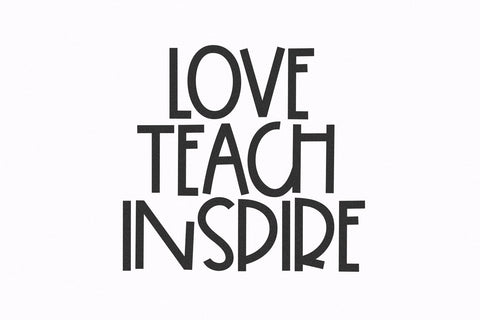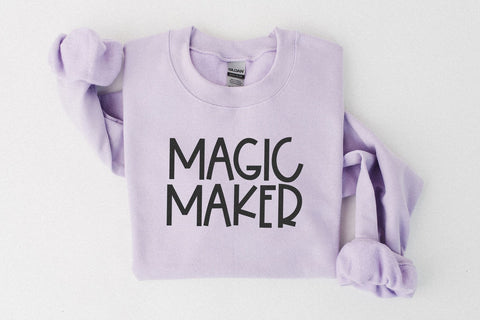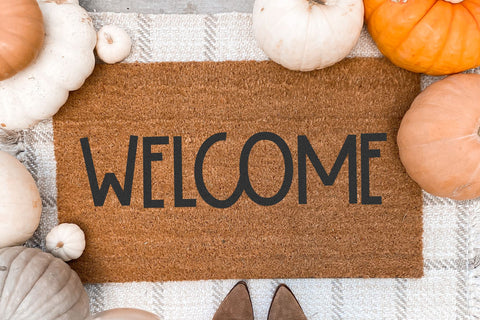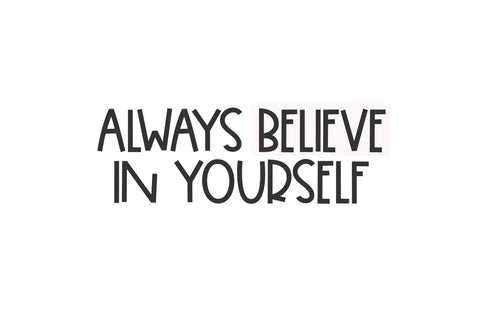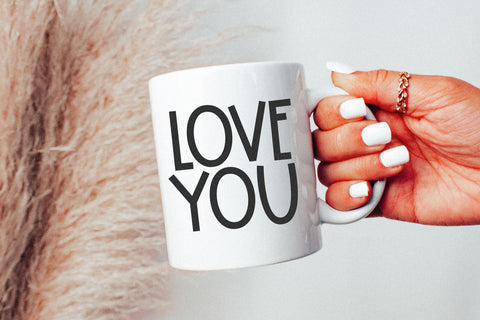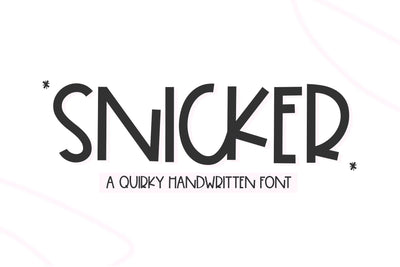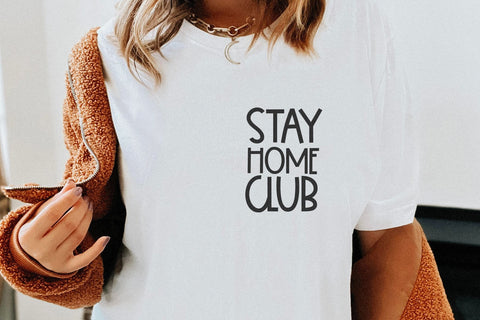
Snicker - Fun Handwritten Font
Snicker is a casual handwritten font.
This font is perfect for craft projects, shirts, mugs, svg files, stickers, quotes, logos and more!